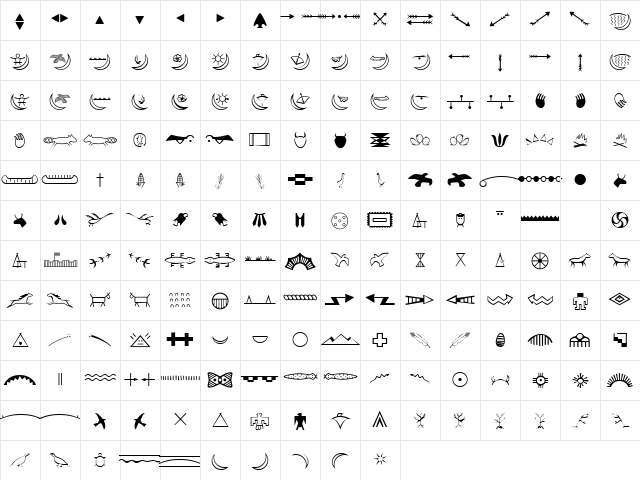
Complete AmericanIndian Regular glyph index. Displaying only characters natively supported by AmericanIndian Regular font.
AmericanIndian is a composed and adaptable typeface that performs quietly and consistently across a wide range of design contexts.